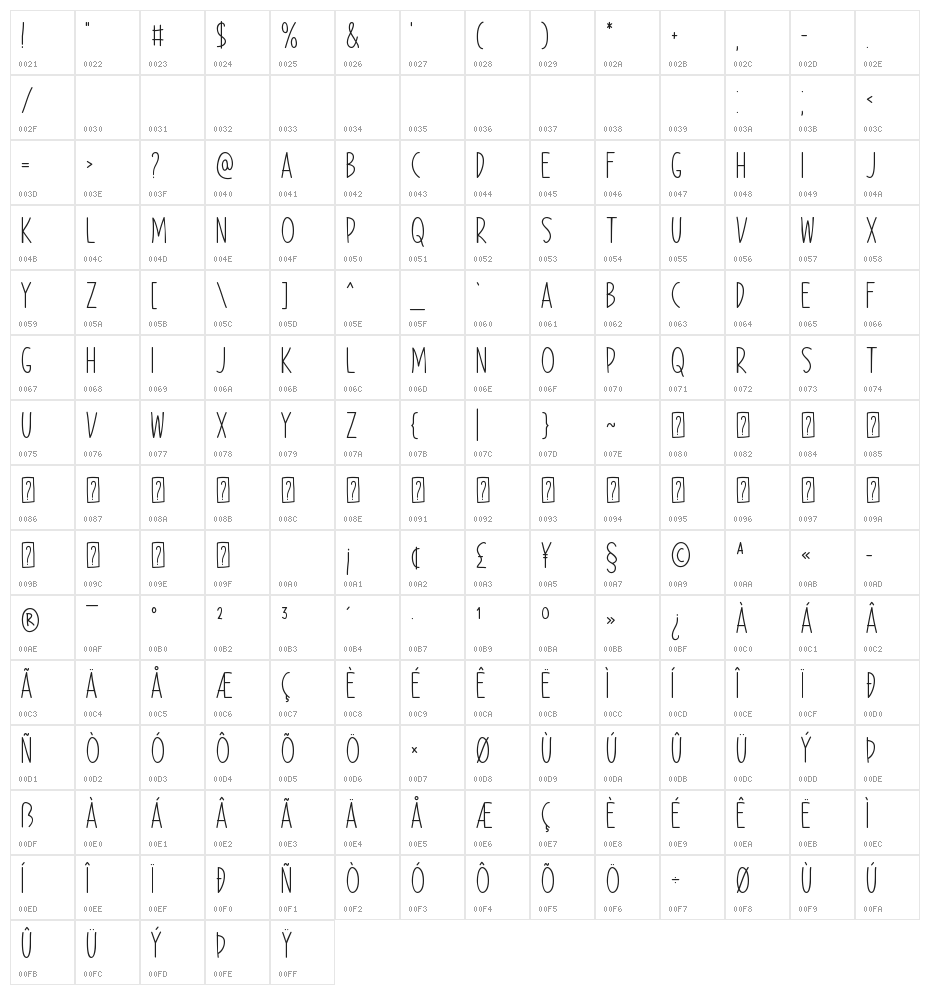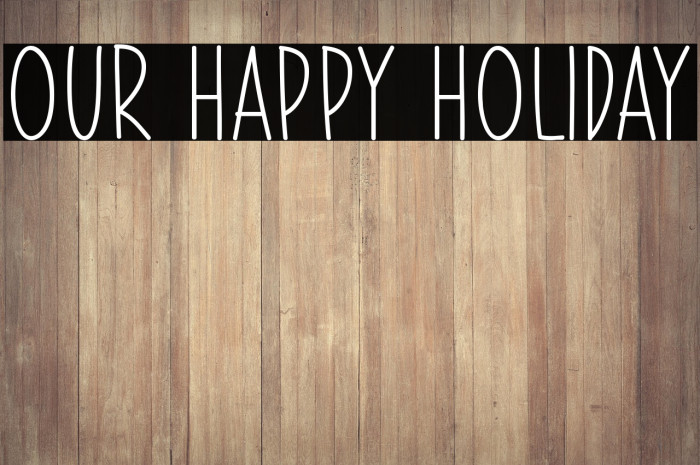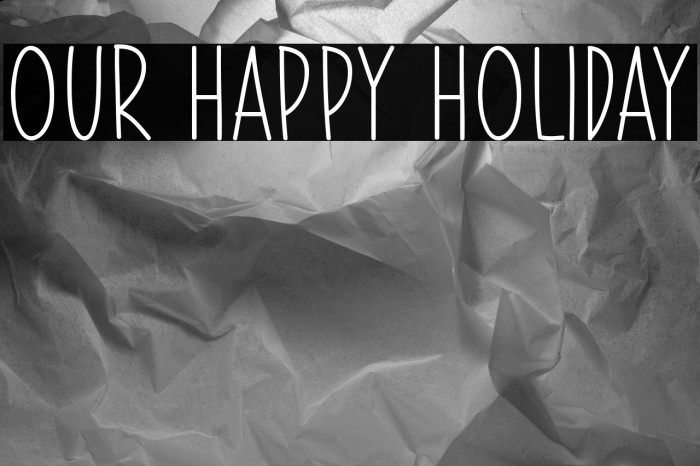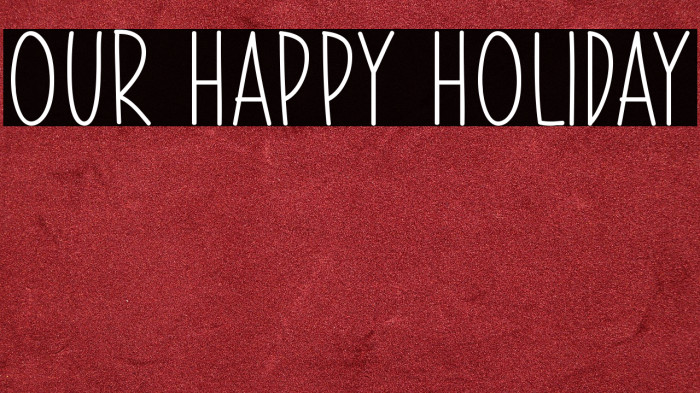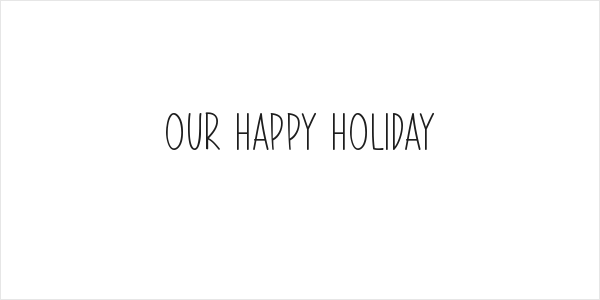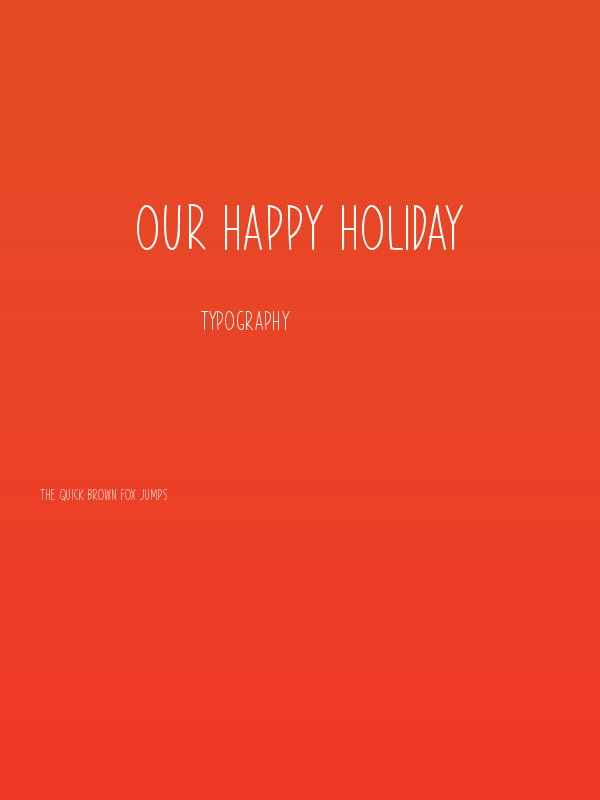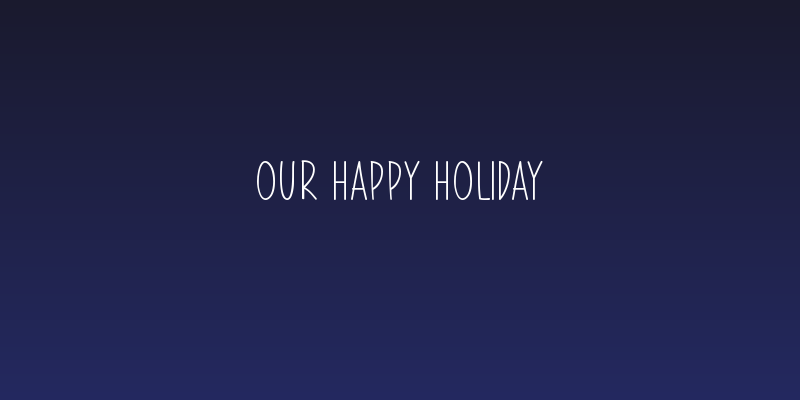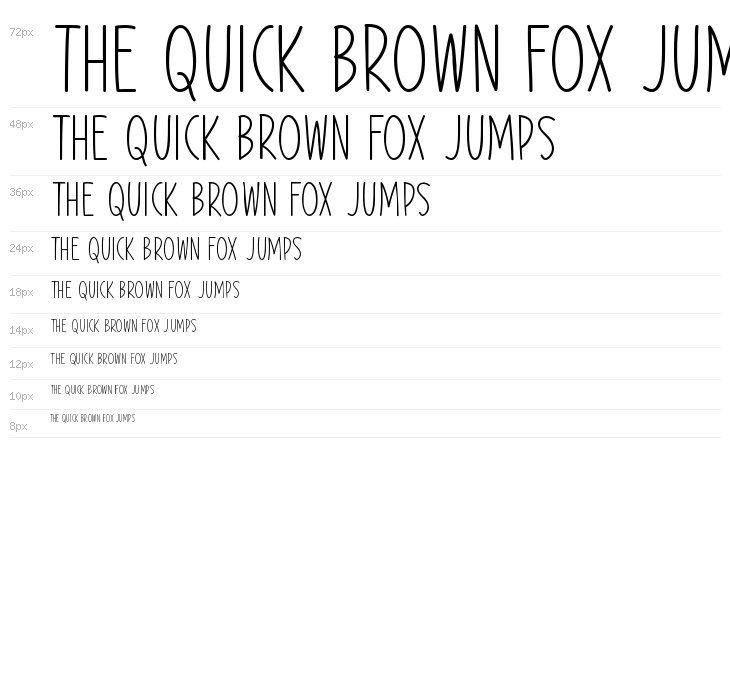
Our Happy Holiday Font
Our Happy Holiday Description
This font features a playful and whimsical handwritten style, characterized by tall, narrow letters with a slight slant. The strokes are consistent in width, giving it a clean and uniform appearance. The uppercase letters are elongated, while the lowercase letters maintain a similar height, creating a cohesive look. The font includes a full set of uppercase and lowercase letters, numbers, and a variety of special characters. Its informal and friendly design makes it suitable for projects that require a personal touch.
| Use Case | Headlines, Casual text, Invitations |
| Proposed Projects | Ideal for greeting cards, children's books, playful branding, and casual invitations. |